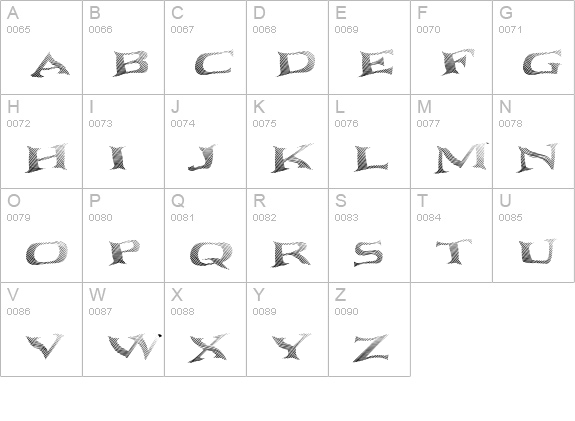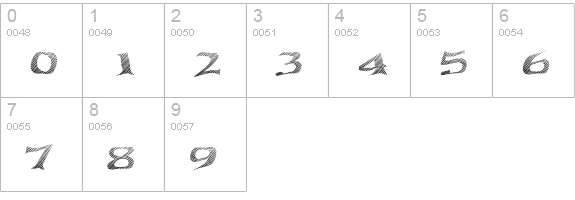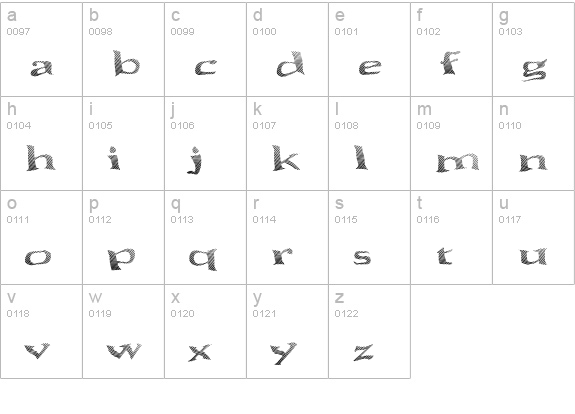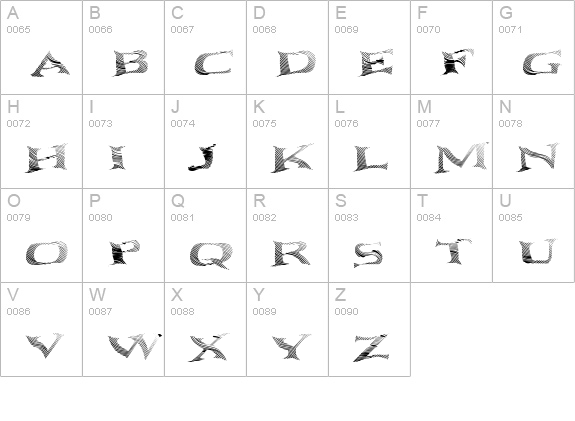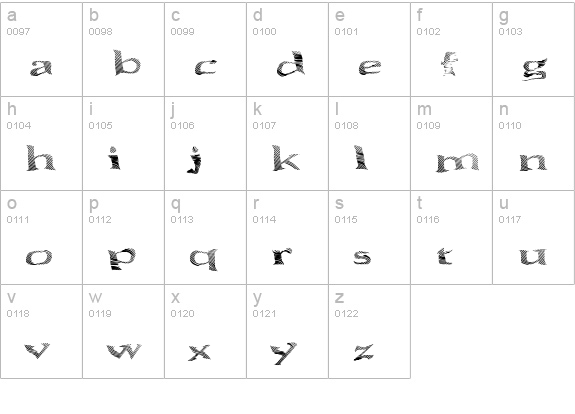
Seawave Extended Keyset Font Details
Seawave Extended Keyset is a distinctive, extended-width variant in the Seawave typeface family \xE2\x80\x94 well suited to design and typography projects.
Seawave Extended Keyset font is a stunning typeface that exudes elegance and sophistication. With its sleek and modern design, this font is perfect for a wide range of creative projects, from branding to advertising to website design. What sets Seawave Extended Keyset font apart is its extensive keyset, which includes a variety of unique and stylish characters, symbols, and glyphs. This makes it incredibly versatile and allows designers to add a touch of individuality to their work. Not only is Seawave Extended Keyset font visually appealing, but it is also incredibly easy to read. The carefully crafted letterforms ensure excellent legibility, making it suitable for both headlines and body text. And the best part? Seawave Extended Keyset font is available for free! You can easily download this amazing font at FontsMarket.com, where you'll find a vast collection of high-quality fonts for all your design needs. So why wait? Enhance your projects with the elegance and versatility of Seawave Extended Keyset font today!